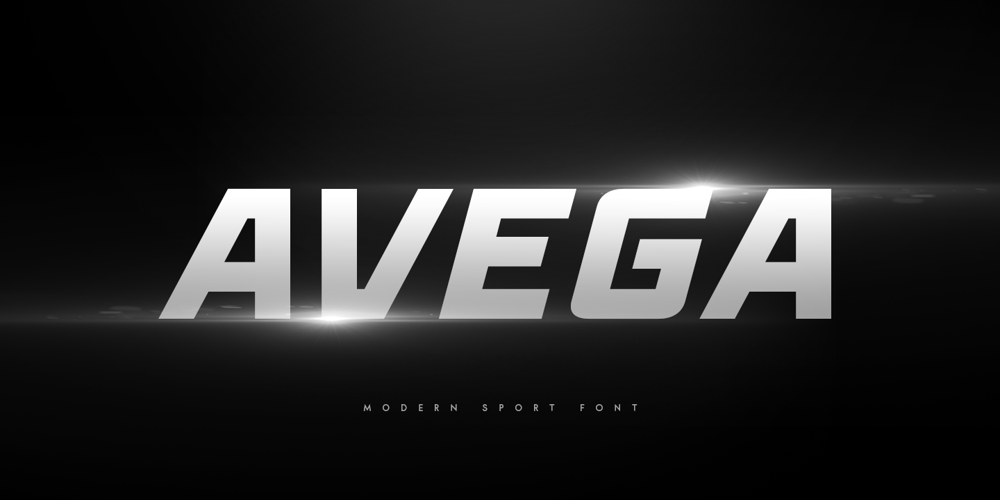
Avega SS
Avega SS font
Avega SS Font Family was designed by Zamroni Hamzah and published by Sensatype Studio. Avega SS contains 4 styles and family package options. AVEGA is a Modern Sport font that created special for Branding, Title and more stand out typography needs, with extra alternative styles that make your design more memorable. It’s so perfect to add your style and headline overview for sport, technology, actions, and fighting theme. And specially for this font, we crafted for bold action style and modern feels so enjoy to create any project that will show your main idea out.AVEGA Modern Sport font ready with: 4 Font variation characters prepared to get creative alternatives Preview as a inspirations that you can do with AVEGA font Ready with All Uppercase characters Wish you enjoy our font. 🙂